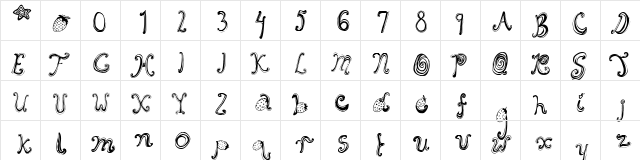
Starberry Swirl Whipped Delight Regular
Design Context for Starberry Swirl Whipped Delight Typeface
Starberry Swirl Whipped Delight is built around its visual character rather than neutral utility — its distinctive forms are designed to make an impression at display sizes. Its slender proportions lend an understated elegance to any composition.
Font Pairing: Pair with a clean neutral sans-serif for body copy to let Starberry Swirl Whipped Delight's character lead without overwhelming the composition.
Pro Tip: Use Starberry Swirl Whipped Delight exclusively at display sizes — it was designed to be seen, not read at length. Let a neutral companion handle body copy.